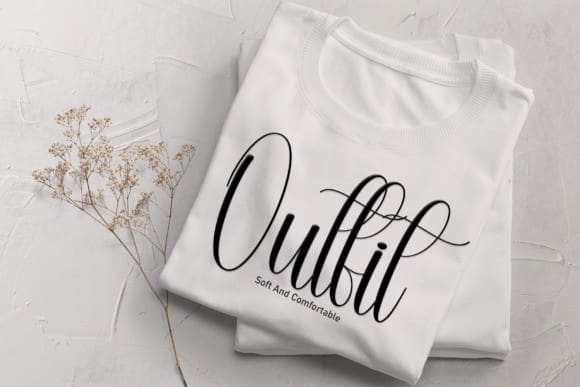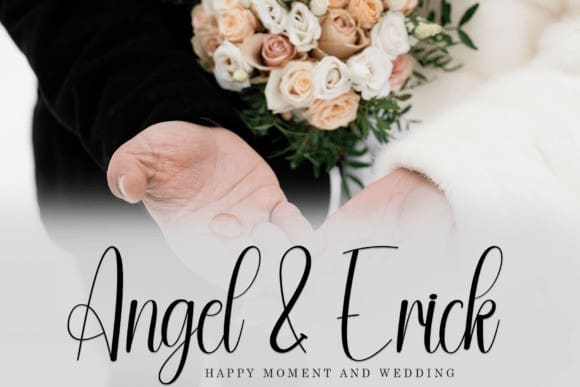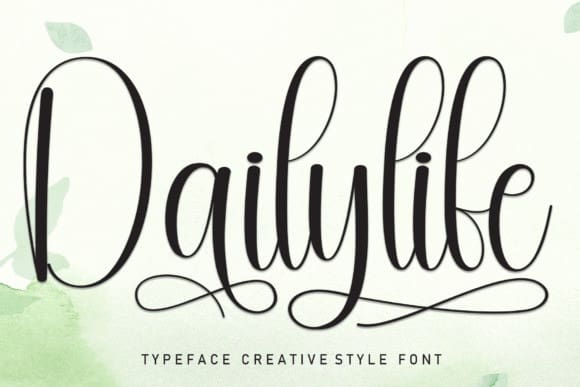
Dailylife Script Font
Dailylife Script Font is a sweet and friendly handwritten font. Cute and fun, this font is ideal for writing wedding invitations, cards, or any other design that might need a lovely touch!